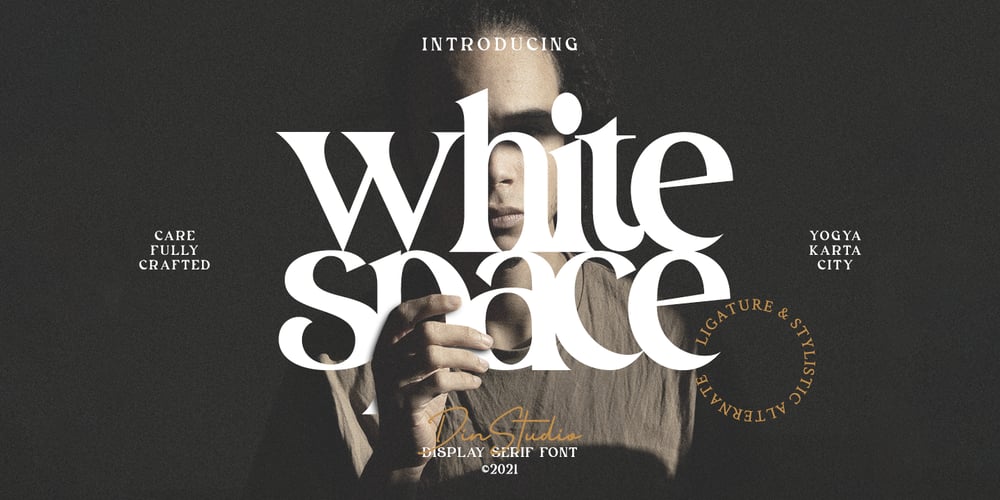
White Space
White Space font
White Space Font Family was designed by Donis Miftahudin and published by Din Studio. White Space contains 1 styles and family package options. Hello, Everybody! Imagine a world filled with white matters? Are you trying to make an elegant, calm, but stylish projects? Then grab this font immediately.Introducing White Space- A Display Serif FontThis gorgeous, stylish and modern font can be used for a host of different content needs and projects. Ideal for social media banners; posts, and ads, printed quotes, t-shirt designs, packaging, or even as a modern text overlay to any background image. Our font always includes Multilingual option to make your branding globally accepted. Features: Standard Ligatures Alternate Stylistic Set Swash Multilingual Support (91 languages) PUA Encoded Numerals and Punctuation Thank you for downloading premium fonts from Din Studio